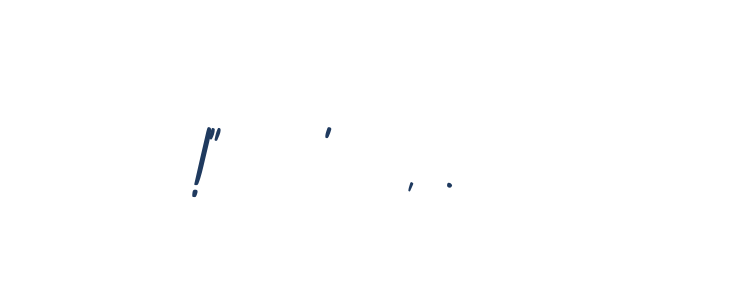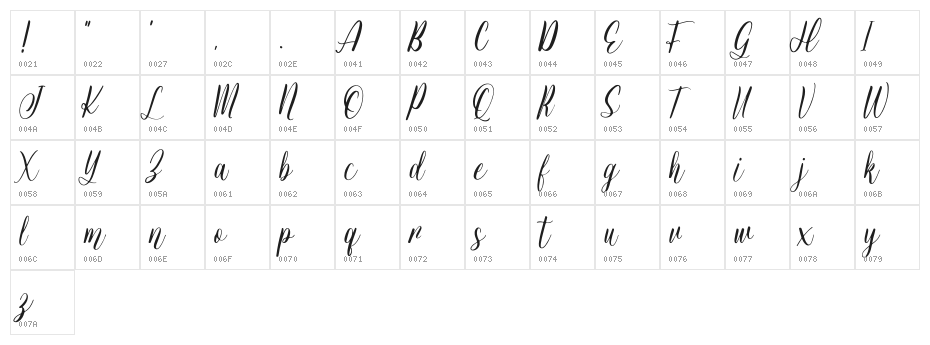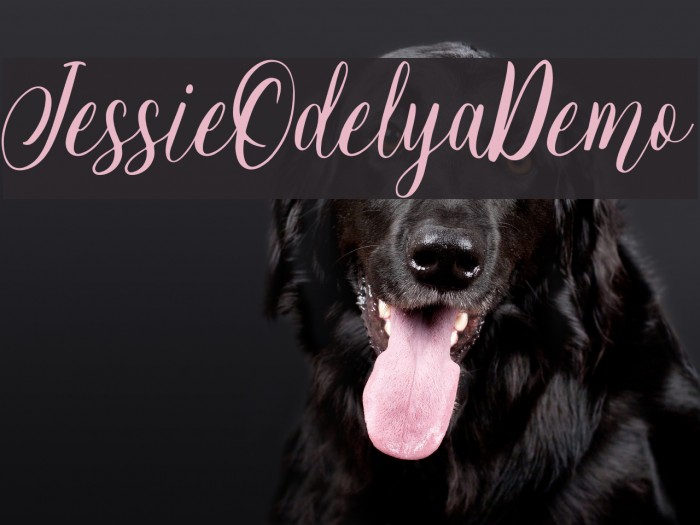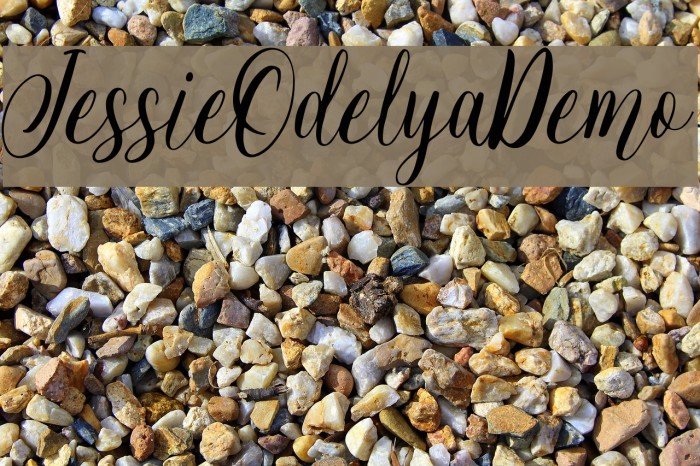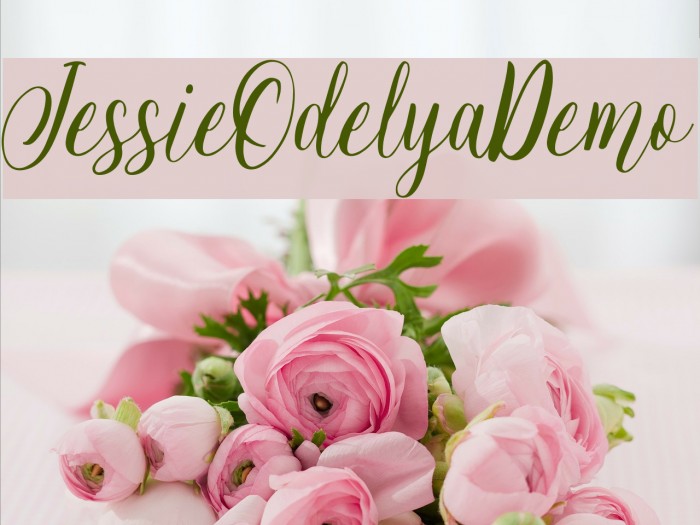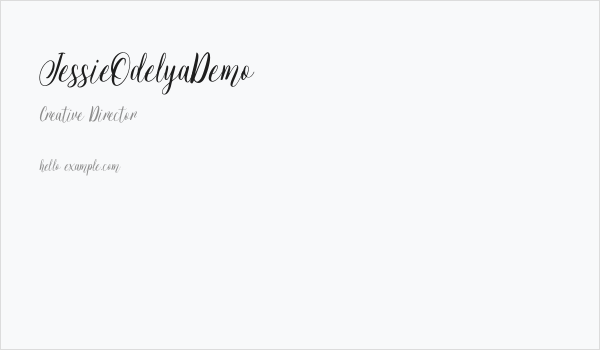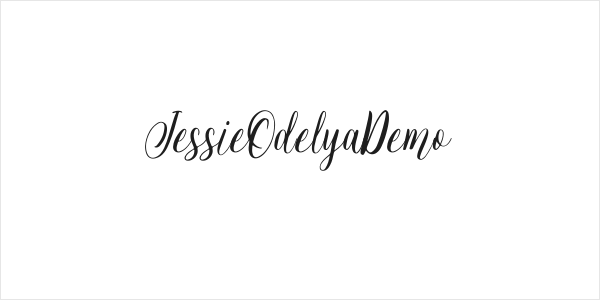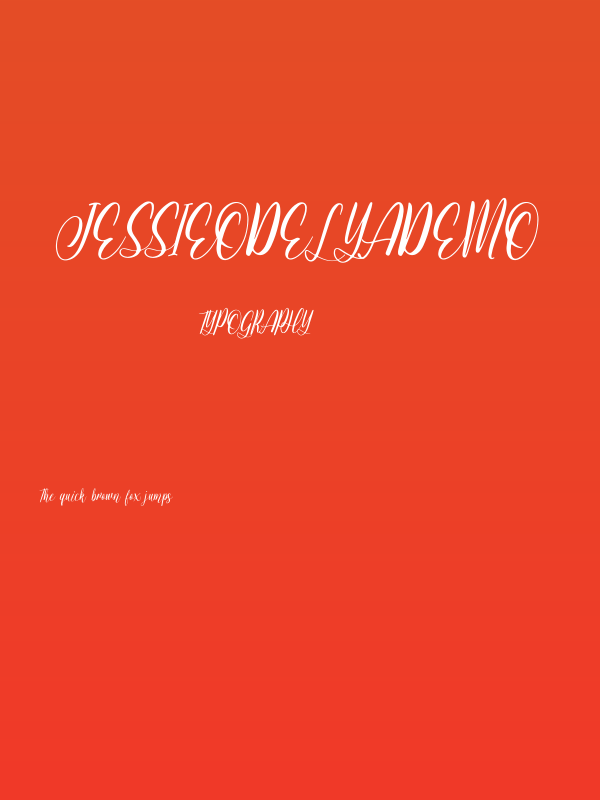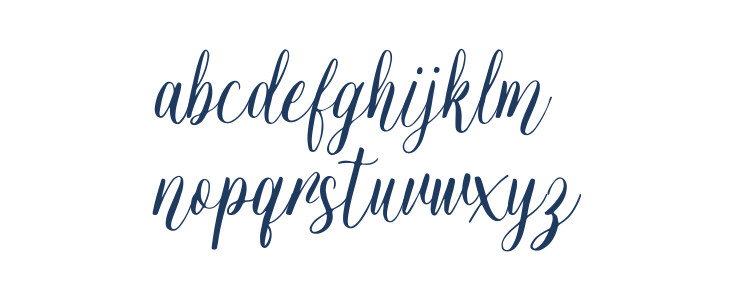
JessieOdelyaDemo Font
JessieOdelyaDemo Description
This font is a stylish and elegant script typeface, characterized by its flowing, cursive strokes and high contrast between thick and thin lines. The letters are intricately designed with a sense of movement and fluidity, making it ideal for creating a sophisticated and artistic look. The uppercase letters are bold and prominent, while the lowercase letters maintain a graceful and delicate appearance. The font includes a full set of uppercase and lowercase letters, numbers, and a selection of special characters, all maintaining a cohesive and harmonious style.
Overall StyleElegant
Use CaseLogos, Invitations, Branding
Proposed ProjectsIdeal for wedding invitations, branding, logo design, and elegant stationery.